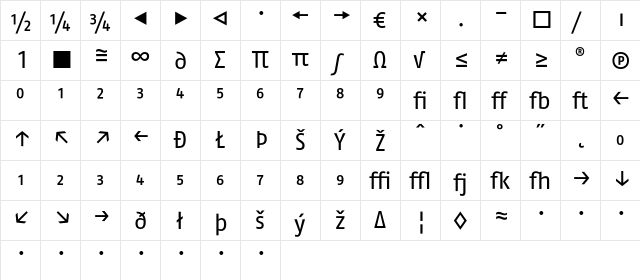
FagoNoRegular Regular
Design Context for FagoNoRegular Typeface
FagoNoRegular takes a measured approach to typography — its balanced proportions and neutral character make it a reliable workhorse for both digital and print work.